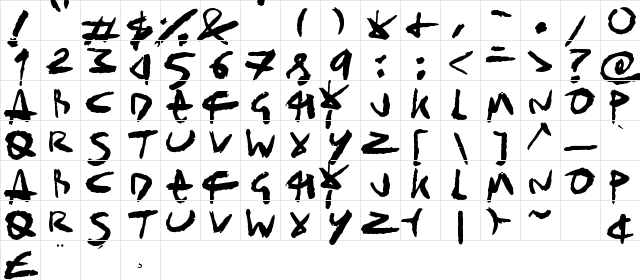
Sick Sketchlings Regular
Design Context for Sick Sketchlings Typeface
Sick Sketchlings is a composed and adaptable typeface that performs quietly and consistently across a wide range of design contexts.